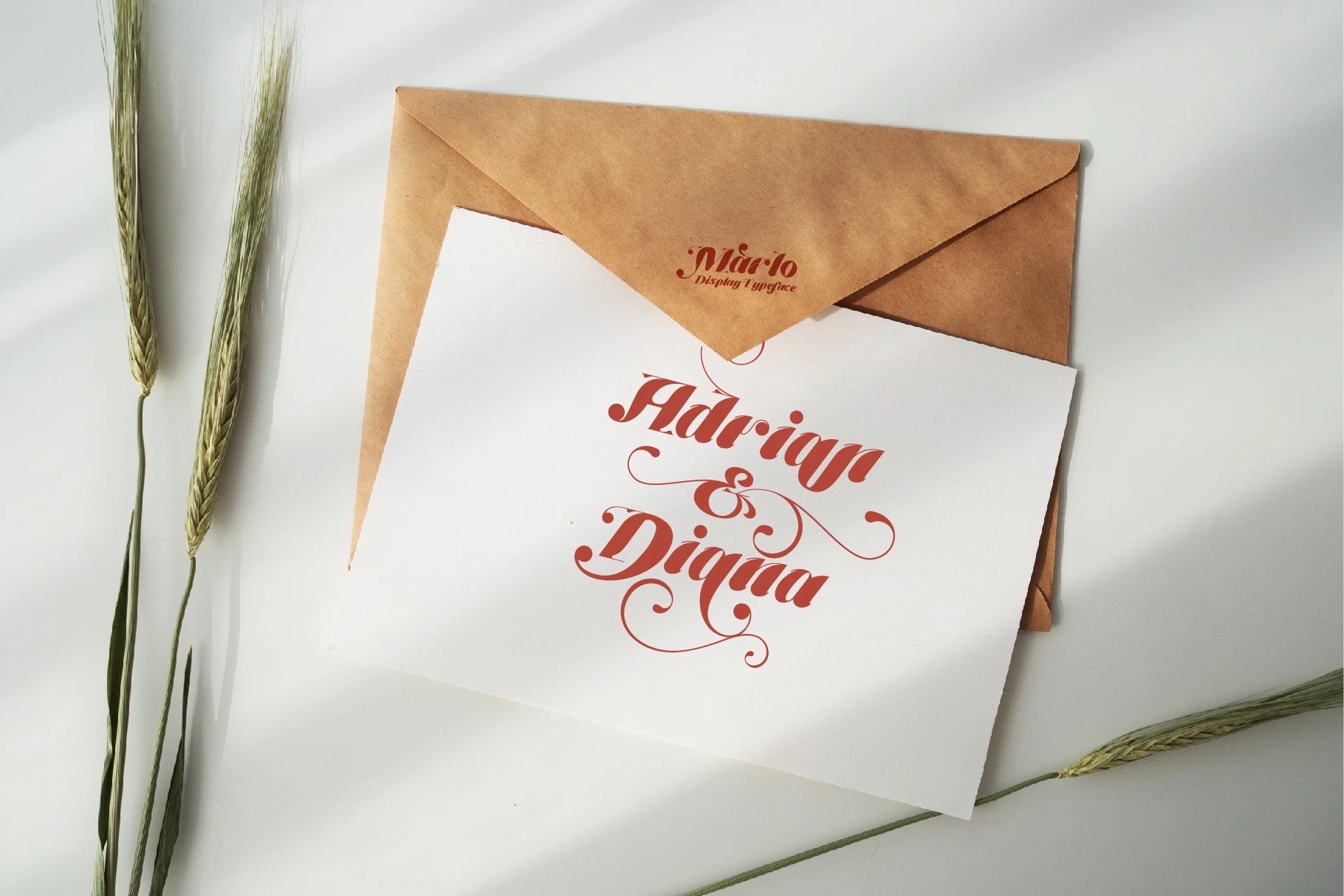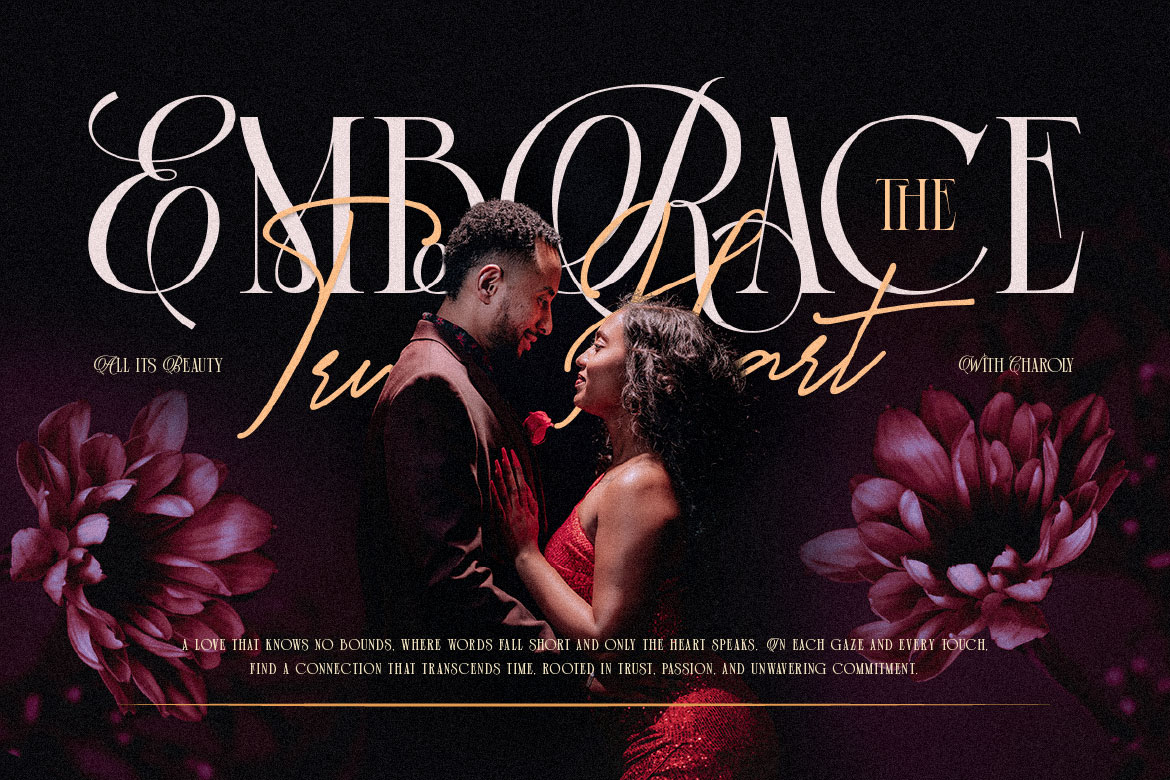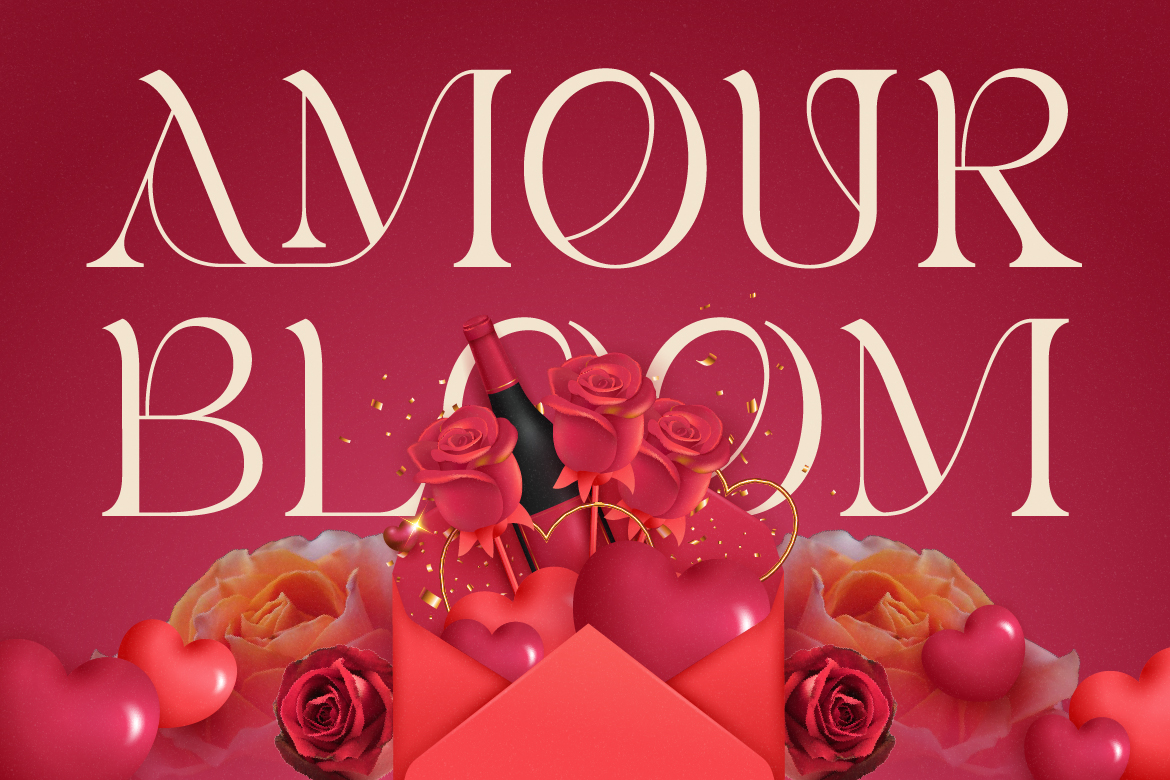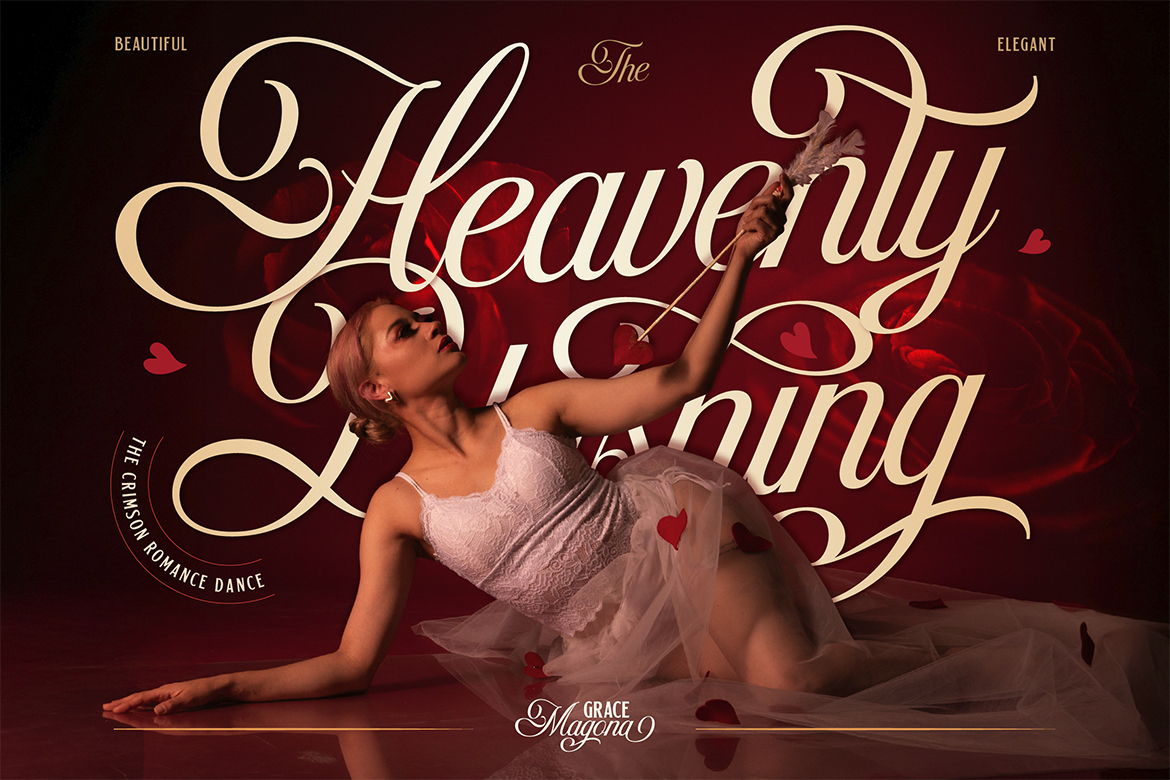
Valentine’s Day is one of the best seasonal moments for designers and creatives to explore romantic typography. From greeting cards to social media campaigns, the right font can transform a simple design into something emotionally powerful.
Here’s a curated guide to the best Valentine font styles designers should consider using in 2026.
Romantic script fonts remain a top choice for Valentine designs. Their natural flow and handwritten character make them perfect for expressing love and warmth.
Elegant display fonts with refined details and soft curves work beautifully for premium Valentine projects. They’re ideal for designers targeting luxury brands or upscale audiences.
Modern serif fonts that balance structure and softness are becoming increasingly popular. They feel romantic without being overly decorative.
For fun-loving and playful Valentine designs, whimsical fonts are a great option. They add charm and personality without feeling too serious.
Fonts that include stylistic alternates and ligatures allow designers to create unique and expressive typography — perfect for Valentine’s Day.
Valentine’s Day designs are all about emotion. Choosing fonts that support that emotional connection can help your work stand out, feel more intentional, and resonate with audiences.